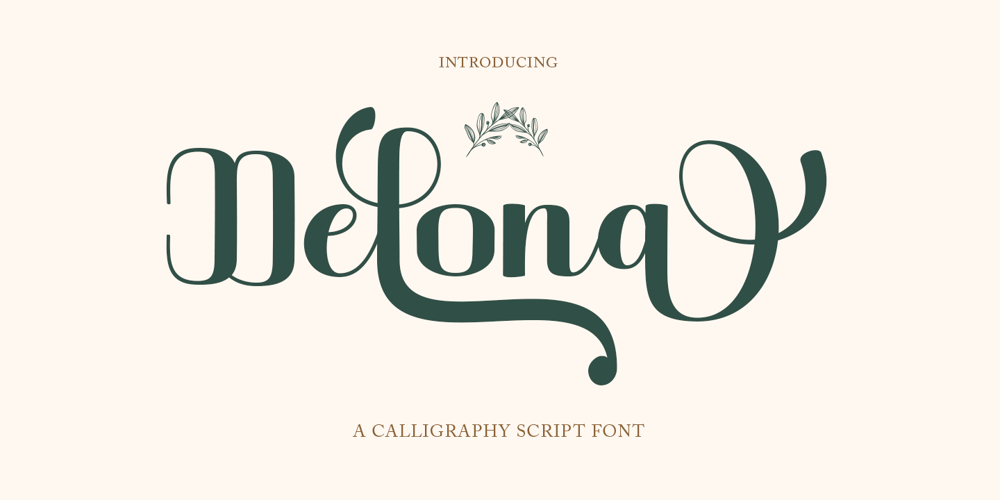
Delona Script
Delona Script font
Delona Script Font Family was designed by Has Rizal and published by Hrz Studio. Delona Script contains 1 styles and family package options. Delona is a classy script. This typeface has a nostalgic feel because of its style, so the font is really suitable for your project with a classic/vintage theme. This font is perfectly made to be applied especially in logos, and the other various formal forms such as invitations, labels, logos, magazines, books, greeting / wedding cards, packaging, fashion, make up, stationery, novels, labels or any type of advertising purposes.Features :Uppercase & lowercaseNumbers and punctuationsAlternates & LigaturesMultilingualPUAs encodedWe highly recommend using a program that supports OpenType features and Glyphs panels like many of Adobe apps and Corel Draw, so you can see and access all Glyph variations.PLEASE READ FIRST: To use alternate character/swash you have to use opentype. For accessing the opentype feature, kindly check this link letterhend.com/tutorials/using-opentype-feature-in-any-software/ Happy Designing